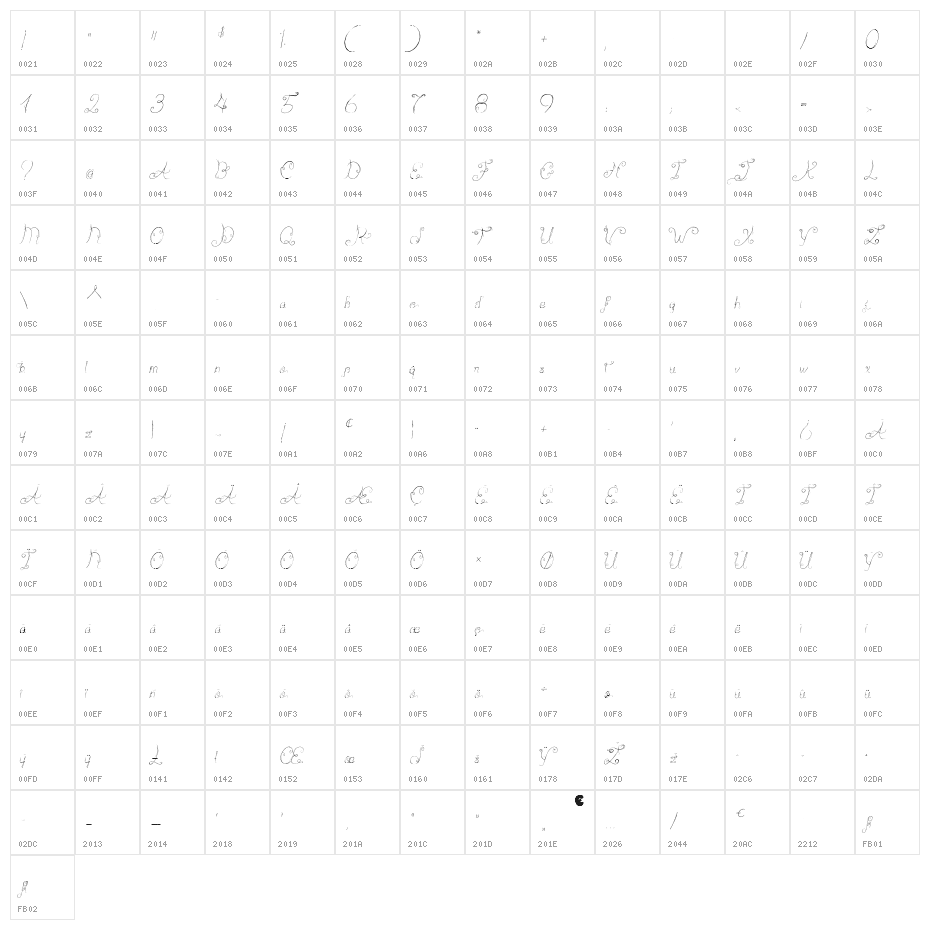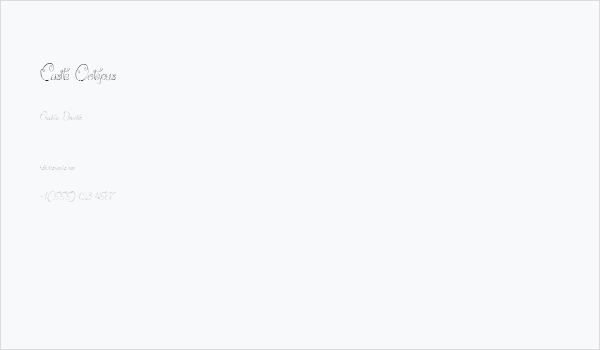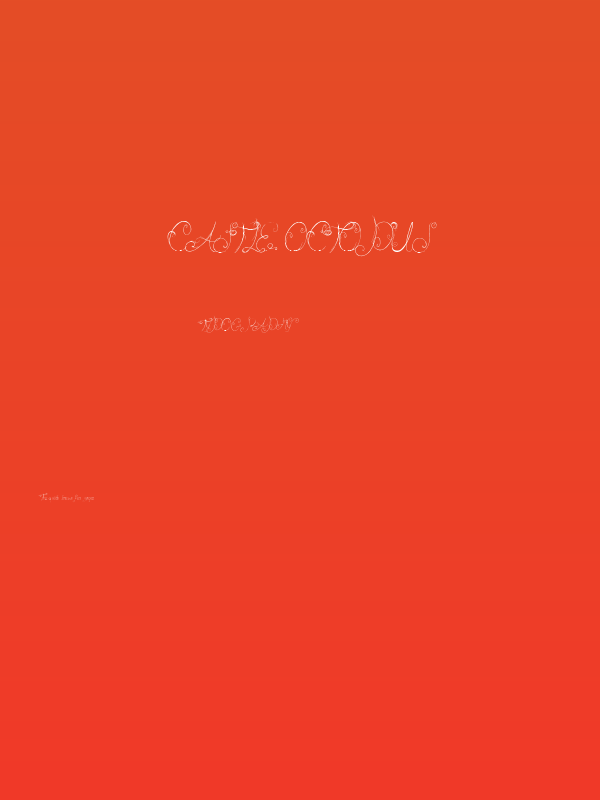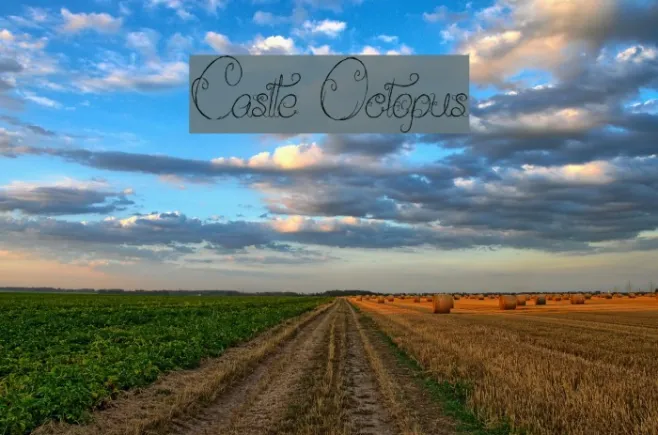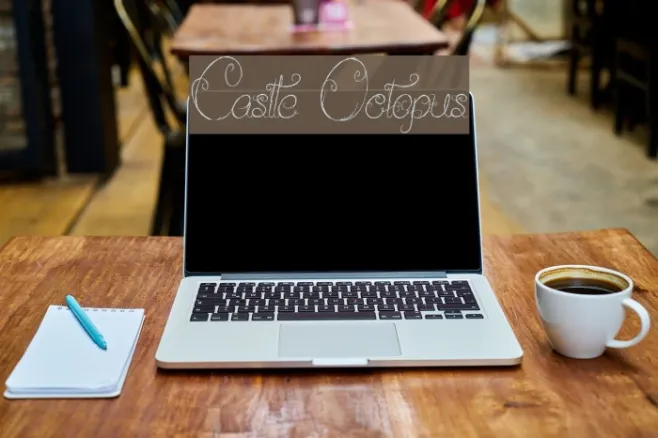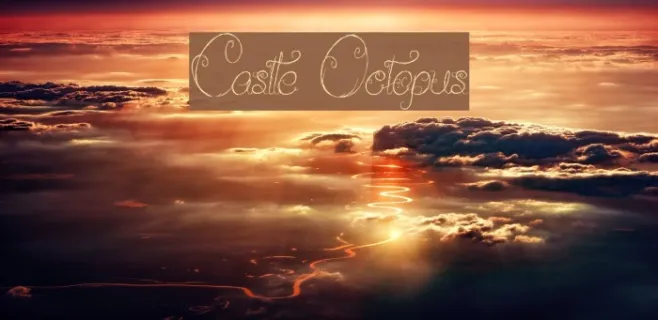
Castle Octopus Font
Castle Octopus Description
This font features an intricate and whimsical design, characterized by elaborate swirls and curls that extend from each character. The letters are highly decorative, with a flowing, almost vine-like quality that gives them a sense of movement and elegance. The uppercase letters are particularly ornate, with each character displaying unique embellishments that make them stand out. The lowercase letters maintain a similar style, though they are slightly more subdued in their ornamentation. The numerals and special characters follow the same decorative theme, ensuring a cohesive look across all elements. This font's delicate and artistic nature makes it ideal for creative and expressive projects.
| Use Case | Logos, Invitations, Artistic Projects |
| Proposed Projects | Ideal for wedding invitations, artistic posters, and branding for luxury products. |